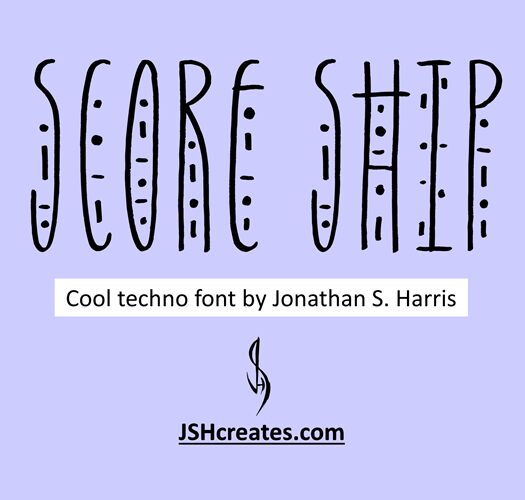
Score Ship by Jonathan S Harris is a condensed decorative display font. It's perfect for wedding invitations, logos, greeting cards, posters, craft projects and more!